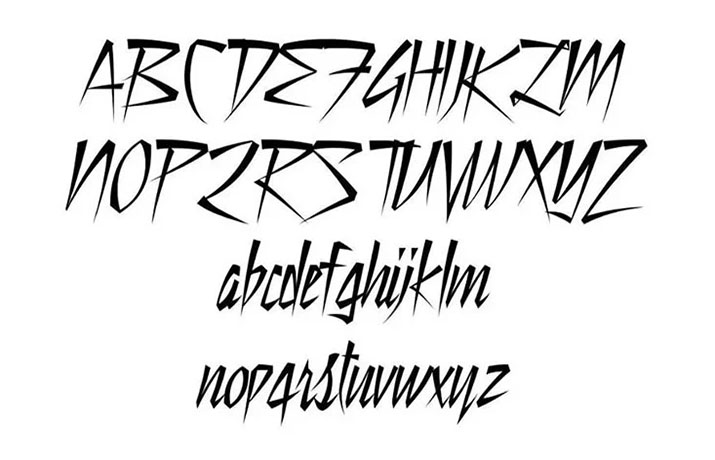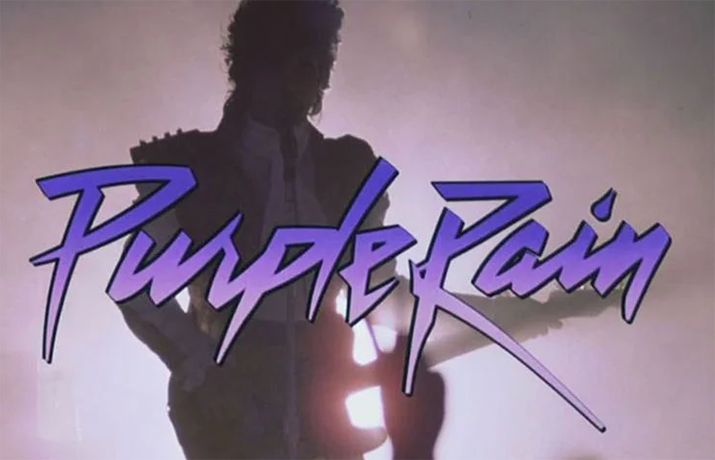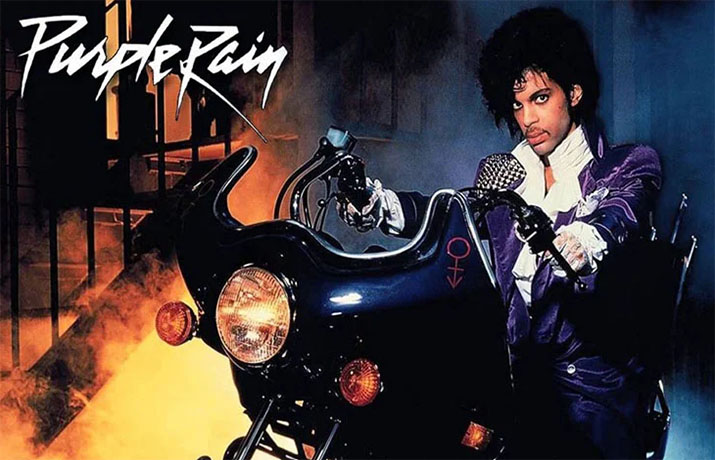
Purple Rain Font is a logo typeface basically, Purple Rain is a 1984 American rock musical drama film scored by and starring Prince in his acting debut.
It is directed by Albert Magnoli and written by Magnoli and William Blinn. The film grossed more than $80 million at the box office and became a cult classic. The film won an Academy Award for Best Original Song Score.
“The font used for the film title in the poster is very similar to Still Time. It is a display typeface designed by Canadian type designer Ray Larabie.”
This font family is available in a single weight along with True Type features. It includes 322 glyphs, numbers, some punctuation marks, and 1046 binary stored kerning pairs. Moreover, it also supports 89 multilingual languages.